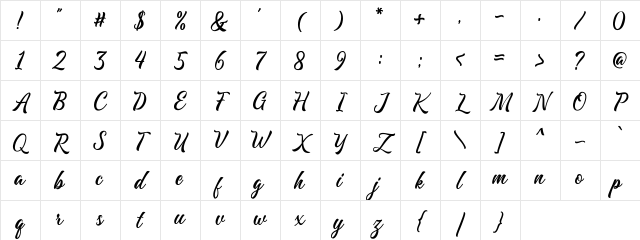
Majestika Script DEMO Regular Free Font
Majestika Script DEMO Regular
Foundry: Letterhend Studio
Designer: Letterhend Studio
Design Context for Majestika Script DEMO
Majestika Script DEMO flows with the natural rhythm of handwritten lettering, making it ideal for designs that call for warmth and personal expression.
Font Pairing: Combine Majestika Script DEMO with a simple geometric sans for maximum contrast - the tension between flowing curves and clean structure is a classic typographic pairing.
Pro Tip: Use Majestika Script DEMO for short runs of text - names, titles, or taglines. Extended body copy in script faces tires the eye quickly.